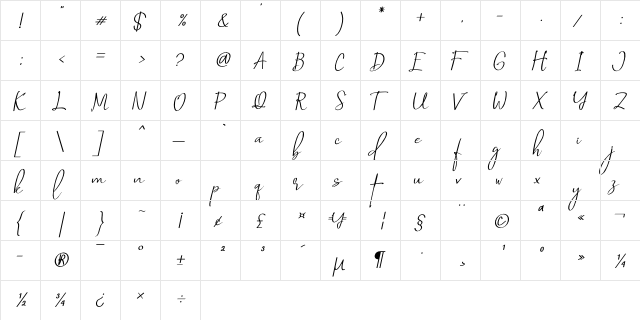
Saint Petersburg - Italic Regular
Design Context for Saint Petersburg - Italic Typeface
Saint Petersburg - Italic is a composed and adaptable typeface that performs quietly and consistently across a wide range of design contexts. The dynamic lean of this cut emphasises speed and emphasis in any layout.
Pro Tip: Try Saint Petersburg - Italic for annotation and caption copy alongside an upright companion — the contrast in angle creates a dynamic but ordered typographic system.